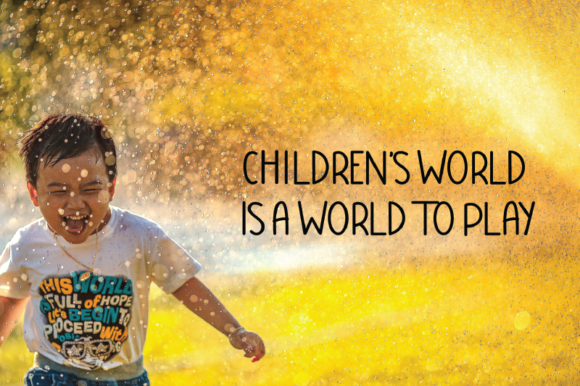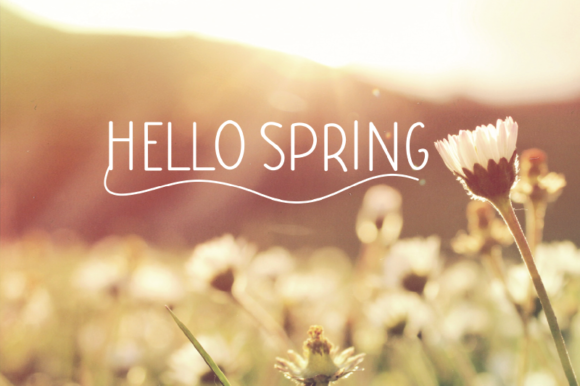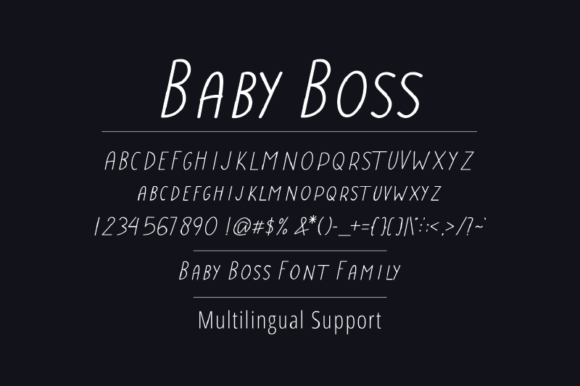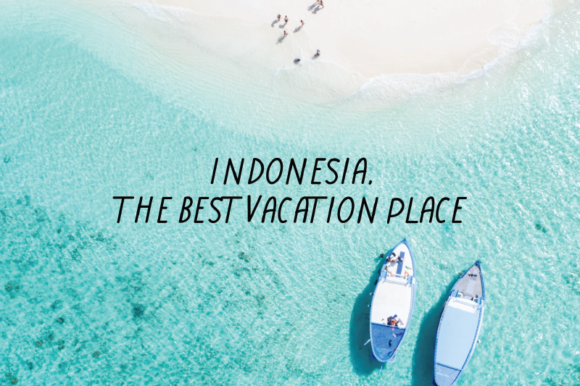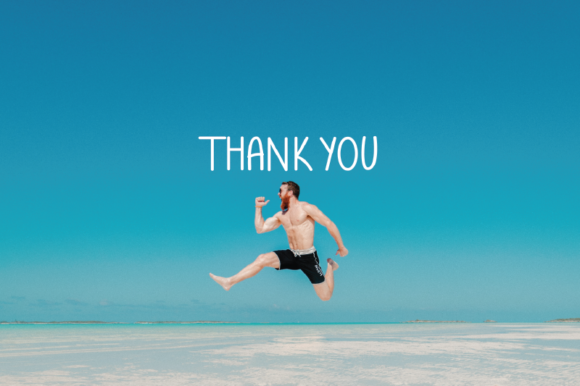
Baby Boss Font: Adding a Touch of Whimsy to Your Designs
Baby Boss is a charming sans font that can give your design a lighthearted appearance. Get inspired by its playful nature! This delightful font is perfect for designers and crafters looking to add a touch of whimsy to their projects. In this article, we’ll explore the features and benefits of Baby Boss Font, and how it can elevate your designs to the next level.
The Characteristics of Baby Boss Font
Baby Boss Font is a sans-serif font that exudes a playful and carefree vibe. Its clean lines, rounded edges, and soft curves make it an ideal choice for designs that require a friendly and approachable tone. The font’s charming appearance is reminiscent of childhood innocence, making it perfect for projects that cater to a younger audience or require a nostalgic feel.
Key Features of Baby Boss Font
- Playful and whimsical design: Baby Boss Font boasts a unique and imaginative design that adds a touch of fun to any project.
- Clean and legible: Despite its playful nature, the font remains clean and legible, making it suitable for body text and headings.
- Versatile: Baby Boss Font can be used for a wide range of projects, from digital designs to print materials.
- Easy to read: The font’s clear and simple design ensures that your message is conveyed effectively, without compromising on aesthetics.
Benefits of Using Baby Boss Font
So, why should you choose Baby Boss Font for your next project? Here are just a few benefits of using this delightful font:
- Adds a touch of personality: Baby Boss Font injects a dose of personality into your design, setting it apart from more traditional fonts.
- Creates a playful atmosphere: The font’s whimsical nature helps create a playful atmosphere, perfect for designs that require a lighthearted tone.
- Perfect for kids’ designs: Baby Boss Font is an excellent choice for designs targeting children, such as children’s books, educational materials, or kids’ websites.
- Great for branding and advertising: The font’s unique design makes it an excellent choice for branding and advertising projects that require a memorable and attention-grabbing font.
Using Baby Boss Font in Your Designs
Now that we’ve explored the features and benefits of Baby Boss Font, let’s discuss how to incorporate it into your designs:
- Pair it with bold colors: Combine Baby Boss Font with bold, bright colors to create a playful and eye-catching design.
- Experiment with textures: Add depth and interest to your design by pairing Baby Boss Font with different textures and patterns.
- Use it for headings and titles: Baby Boss Font is perfect for headings and titles, where its playful nature can shine.
- Mix it with other fonts: Combine Baby Boss Font with other fonts to create a unique and visually appealing typography.
Tips and Tricks for Working with Baby Boss Font
To get the most out of Baby Boss Font, here are some tips and tricks to keep in mind:
- Use it sparingly: While Baby Boss Font is charming, it’s essential to use it sparingly to avoid overwhelming your design.
- Consider your audience: While the font is perfect for kids’ designs, it may not be suitable for more formal or professional projects.
- Experiment with font sizes: Play around with different font sizes to create visual interest and hierarchy in your design.
- Don’t be afraid to get creative: Baby Boss Font is a versatile font that can be used in a variety of creative ways, so don’t be afraid to experiment and try new things.
| Font Name | Baby Boss Font |
| Author | nirmala.graphics |
In conclusion, Baby Boss Font is a charming sans font that can add a touch of whimsy to your designs. Its playful nature, clean lines, and legible design make it perfect for a wide range of projects, from digital designs to print materials. By incorporating Baby Boss Font into your designs, you can create a lighthearted and playful atmosphere that will captivate your audience. So why not give it a try and see how this delightful font can elevate your designs to the next level?